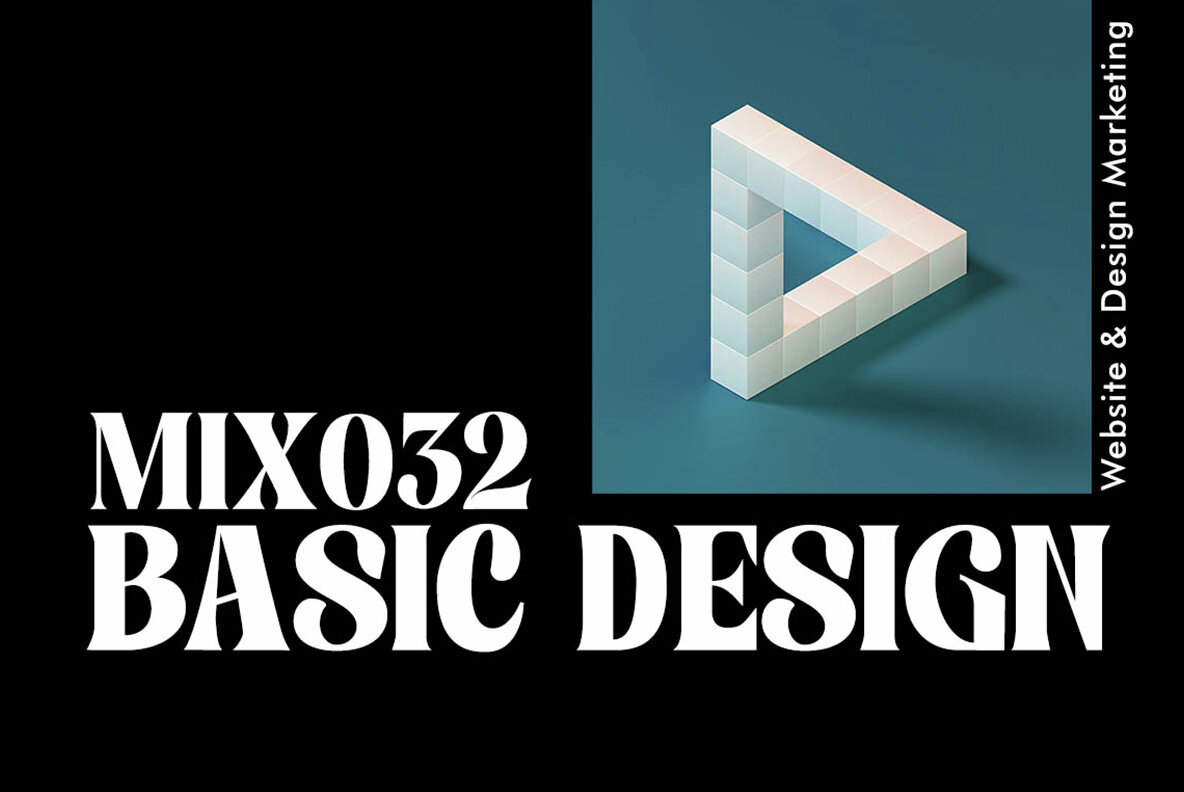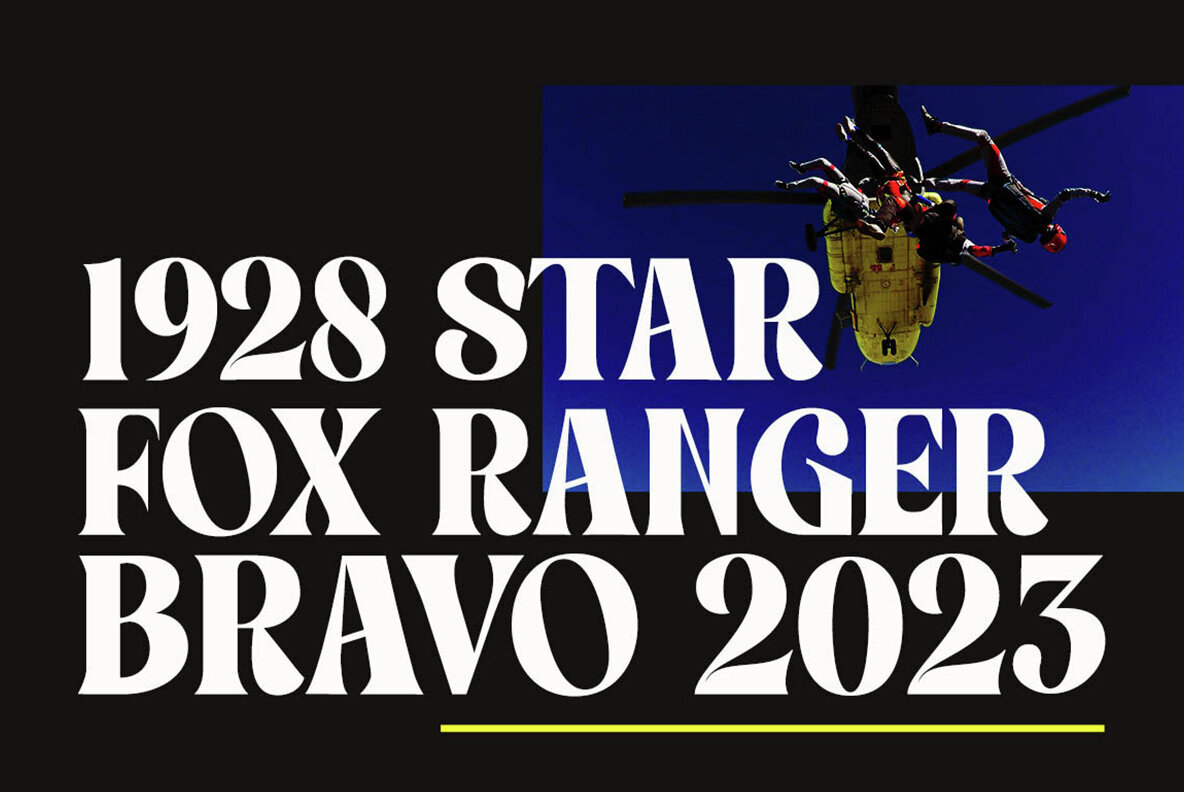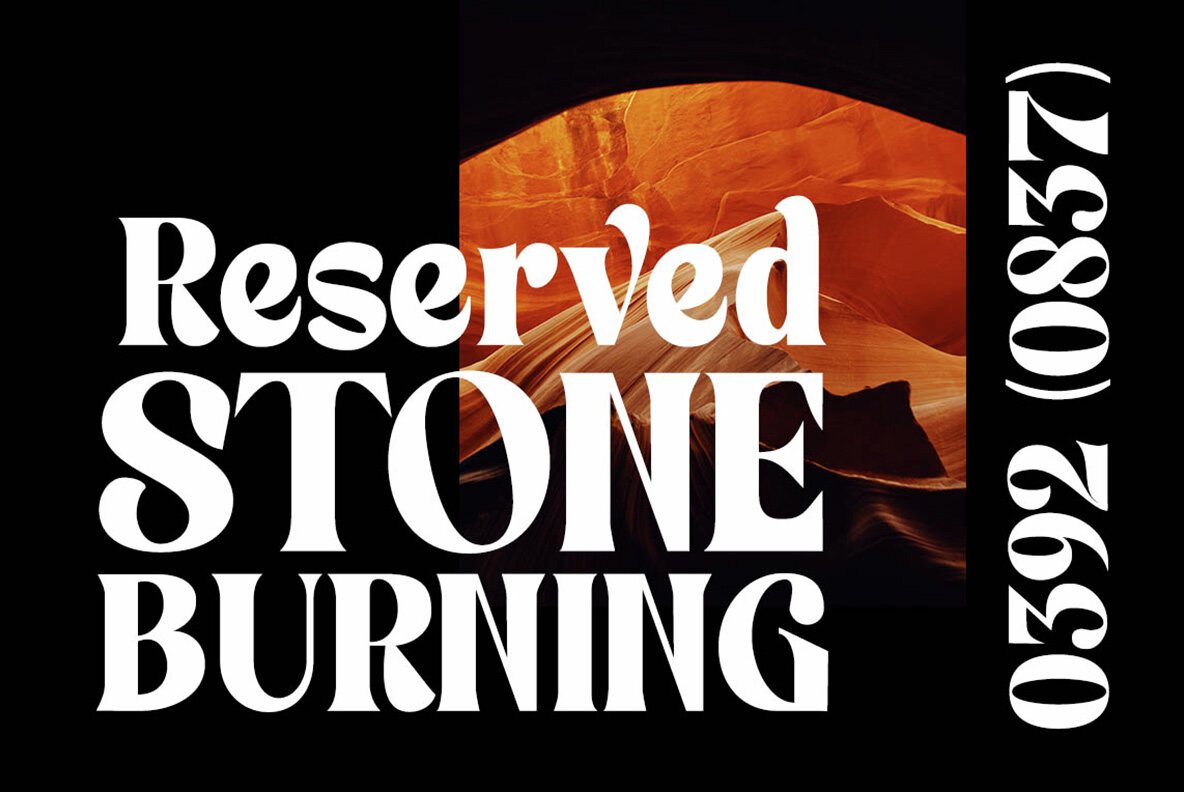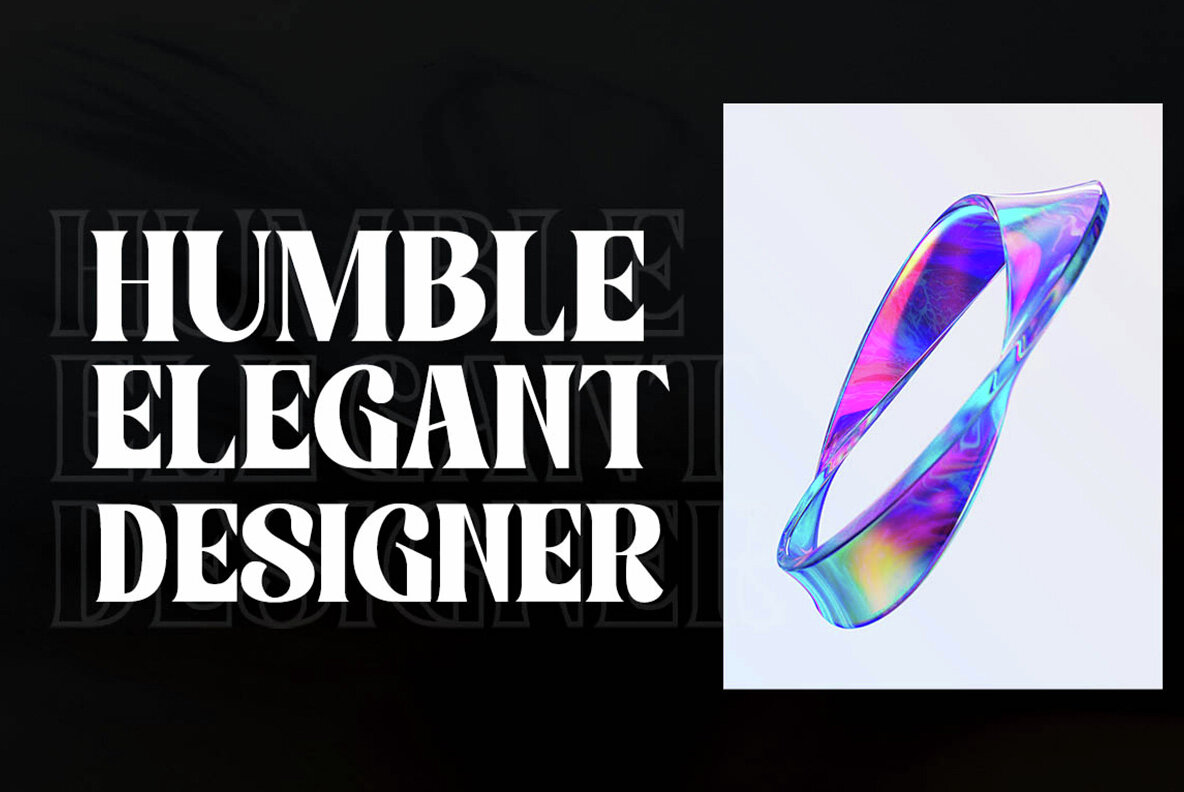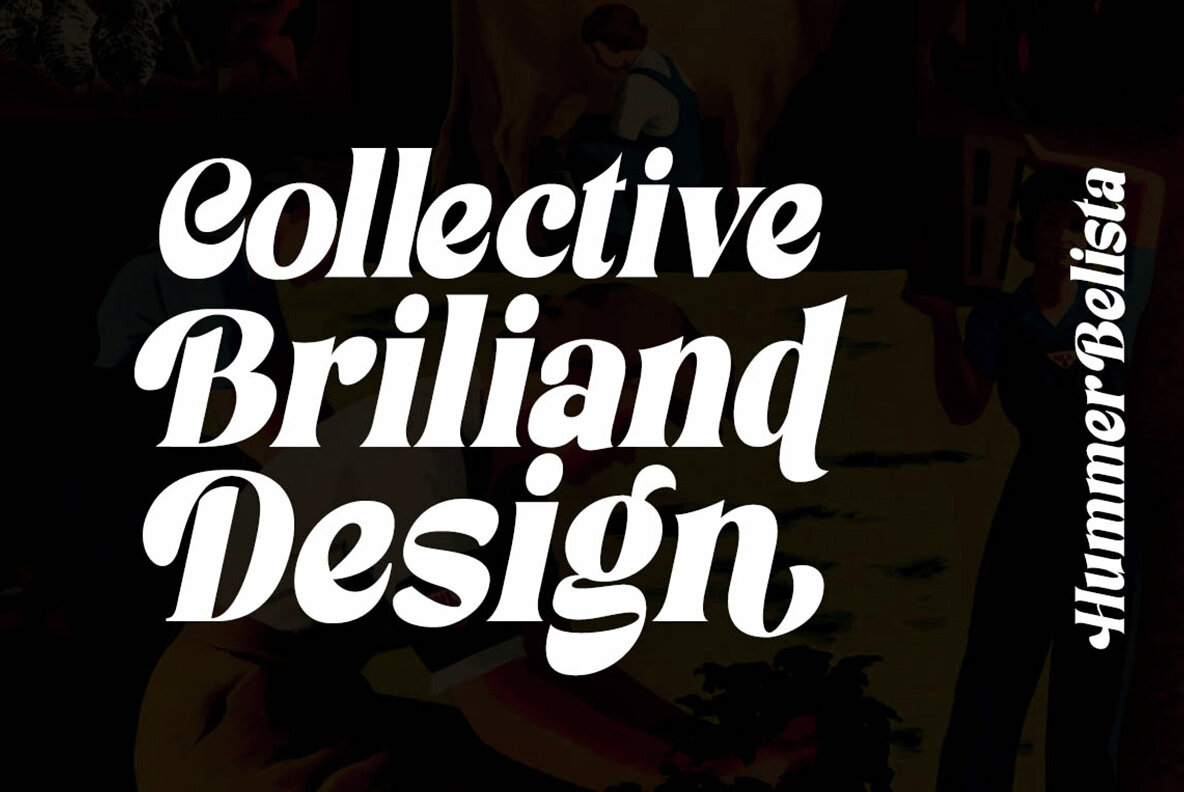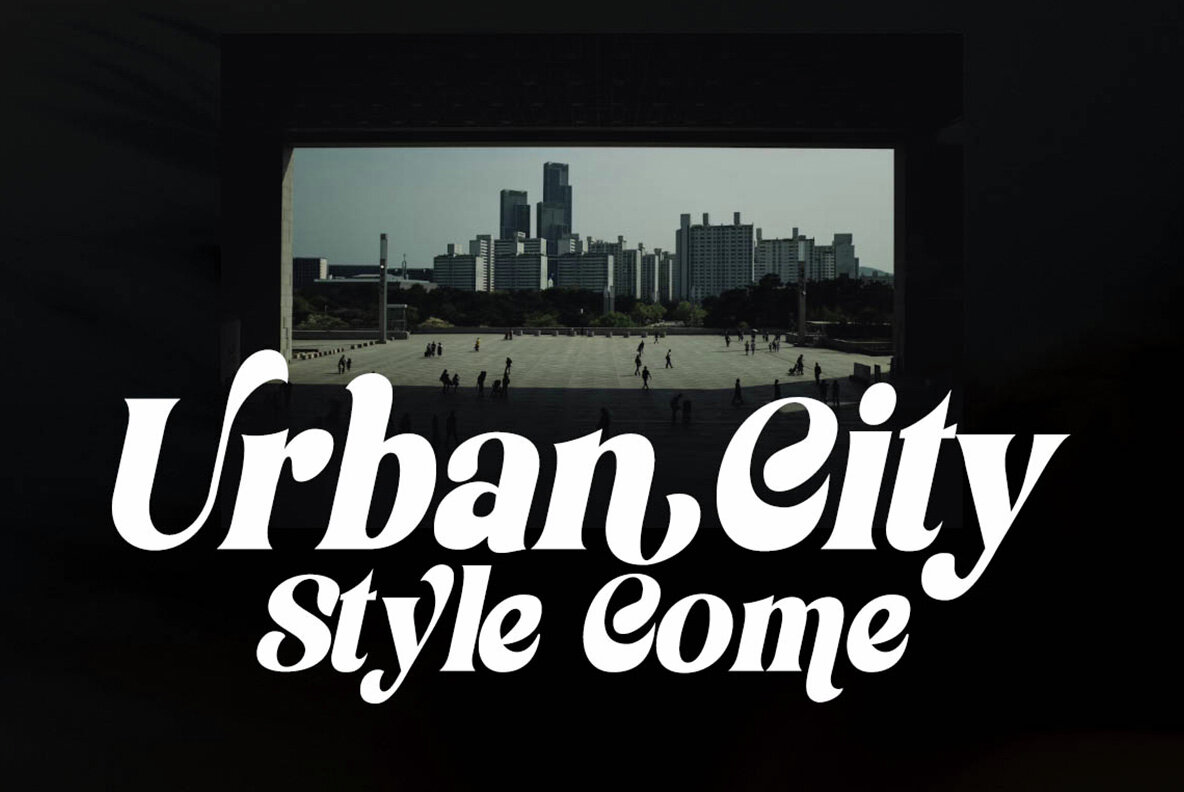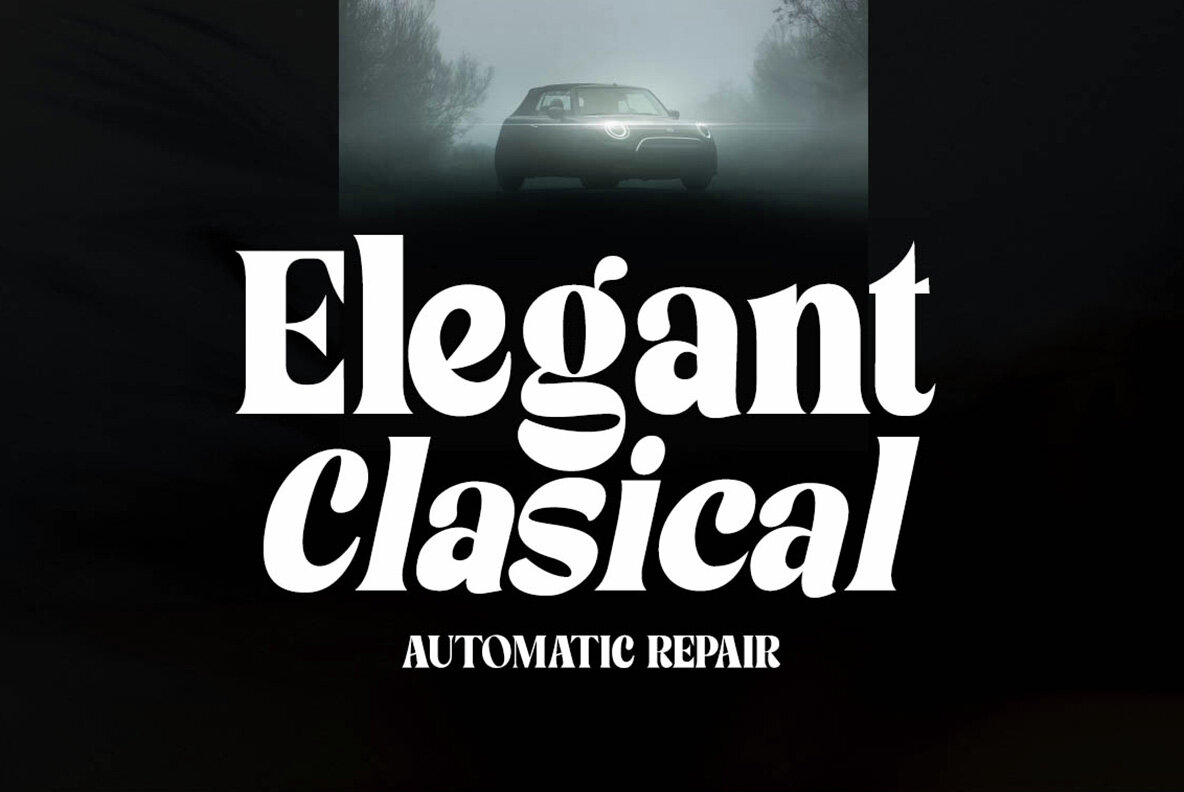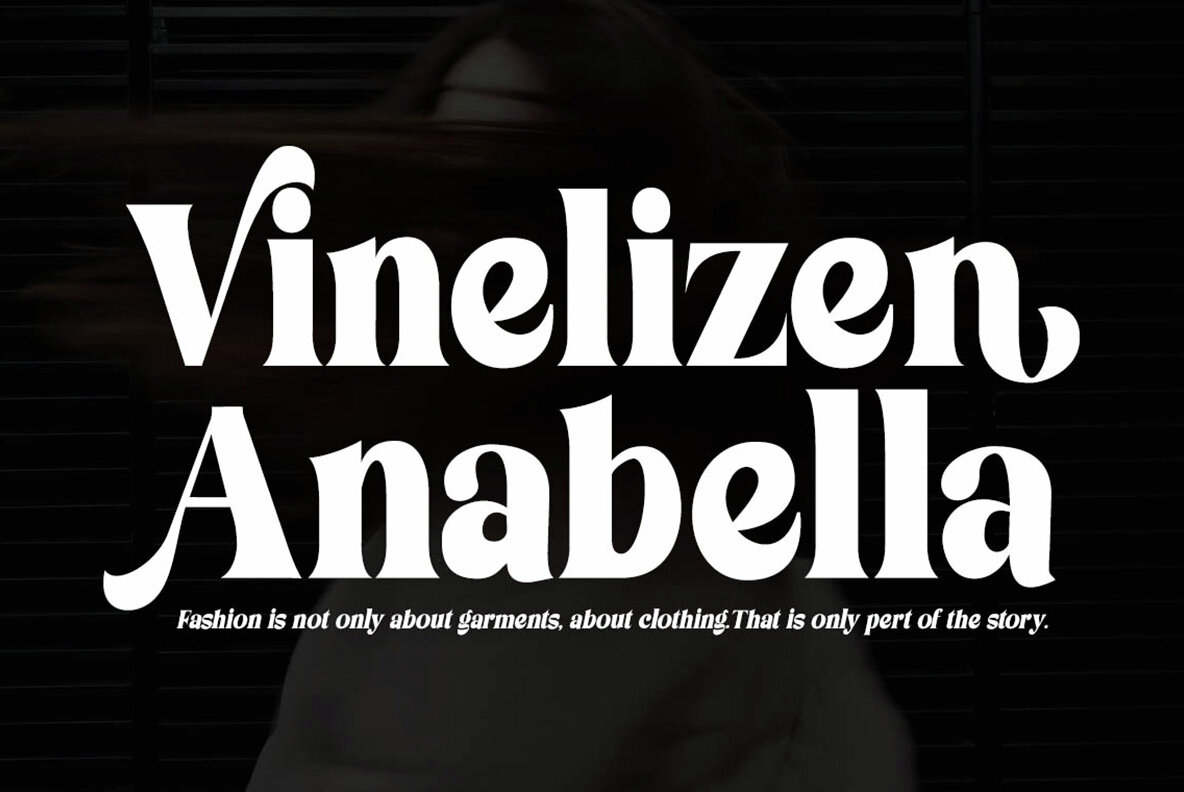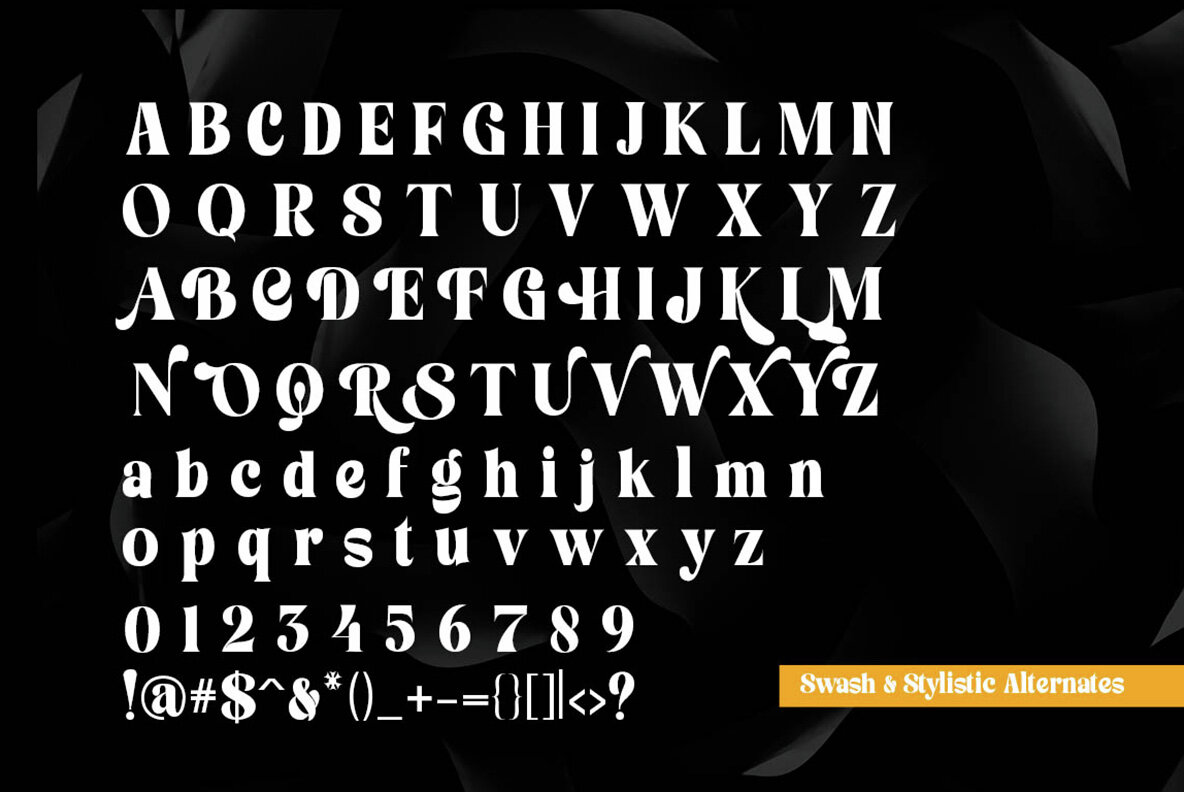
Avone Series Font
The Avone Series & Italic is a vintage typeface that marries a clean, letterpress style with contemporary design elements. This font stands out with its regular and original forms, complete with added ligatures and symbols for extra flair. Perfectly versatile, this typeface is ideal for a variety of display purposes including branding, emblems, advertisements, and t-shirt designs.
Crafted with attention to detail, the Avone Series & Italic offers a modern twist on a classic serif font. Each letter has been meticulously designed to give your text a unique and polished look. Whether used in marketing materials or creative projects, this typeface ensures your message is communicated with style and sophistication.